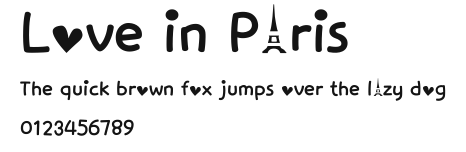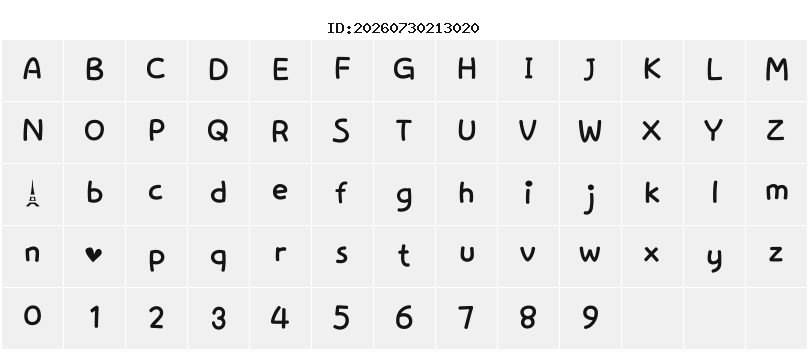
• Font Name: Love in Paris
• Font ID: Love in Paris:Version 1.00
• Full Font Name: Love in Paris
• Version: Version 1.00 January 11, 2015, initial release
• PostScript Name: Love in Paris
• Character Count: 97
Love in Paris.ttf is a modern, elegant sans-serif font designed for ultimate readability and visual harmony. Perfect for branding, headlines, web design, and print materials.